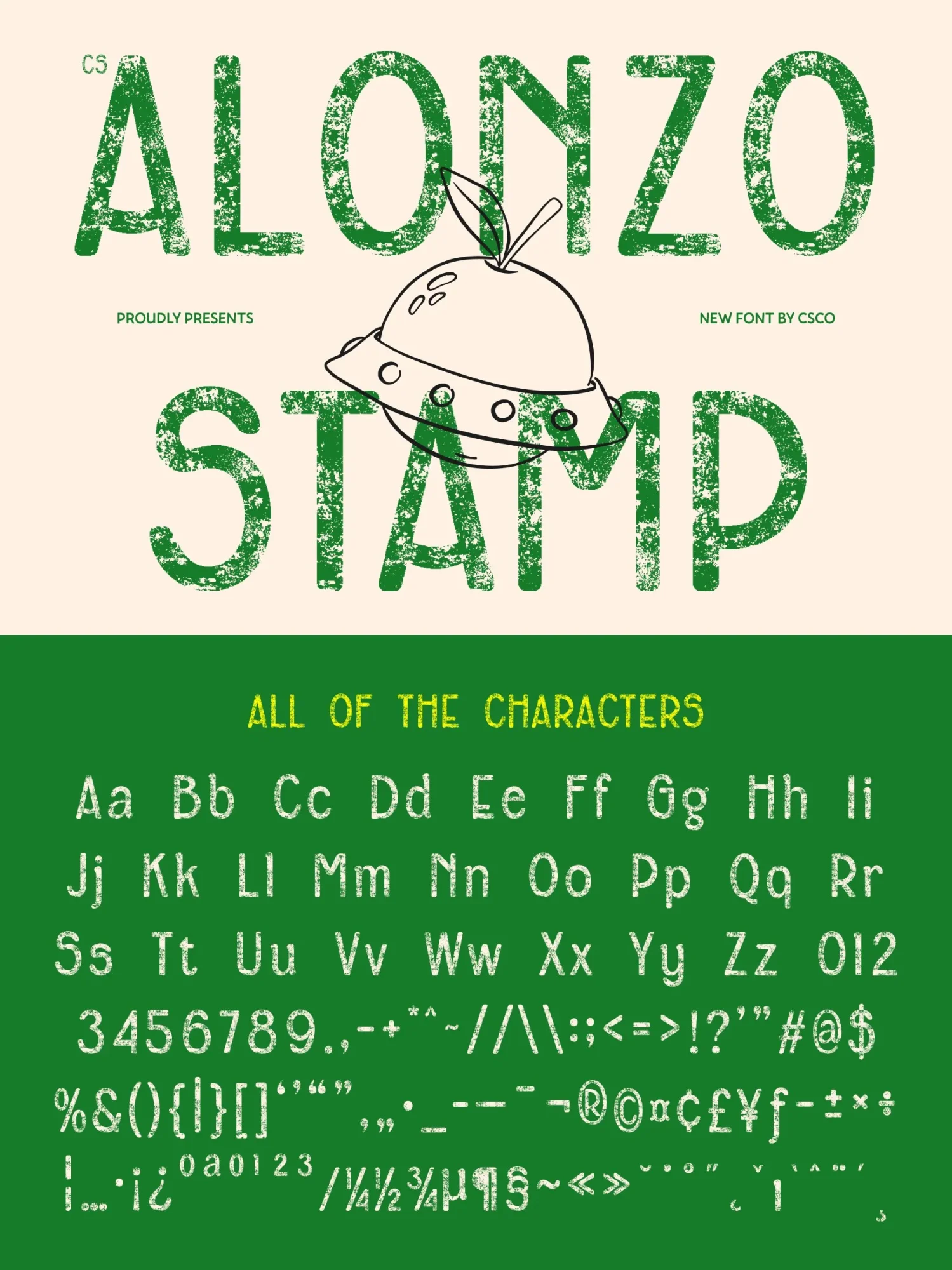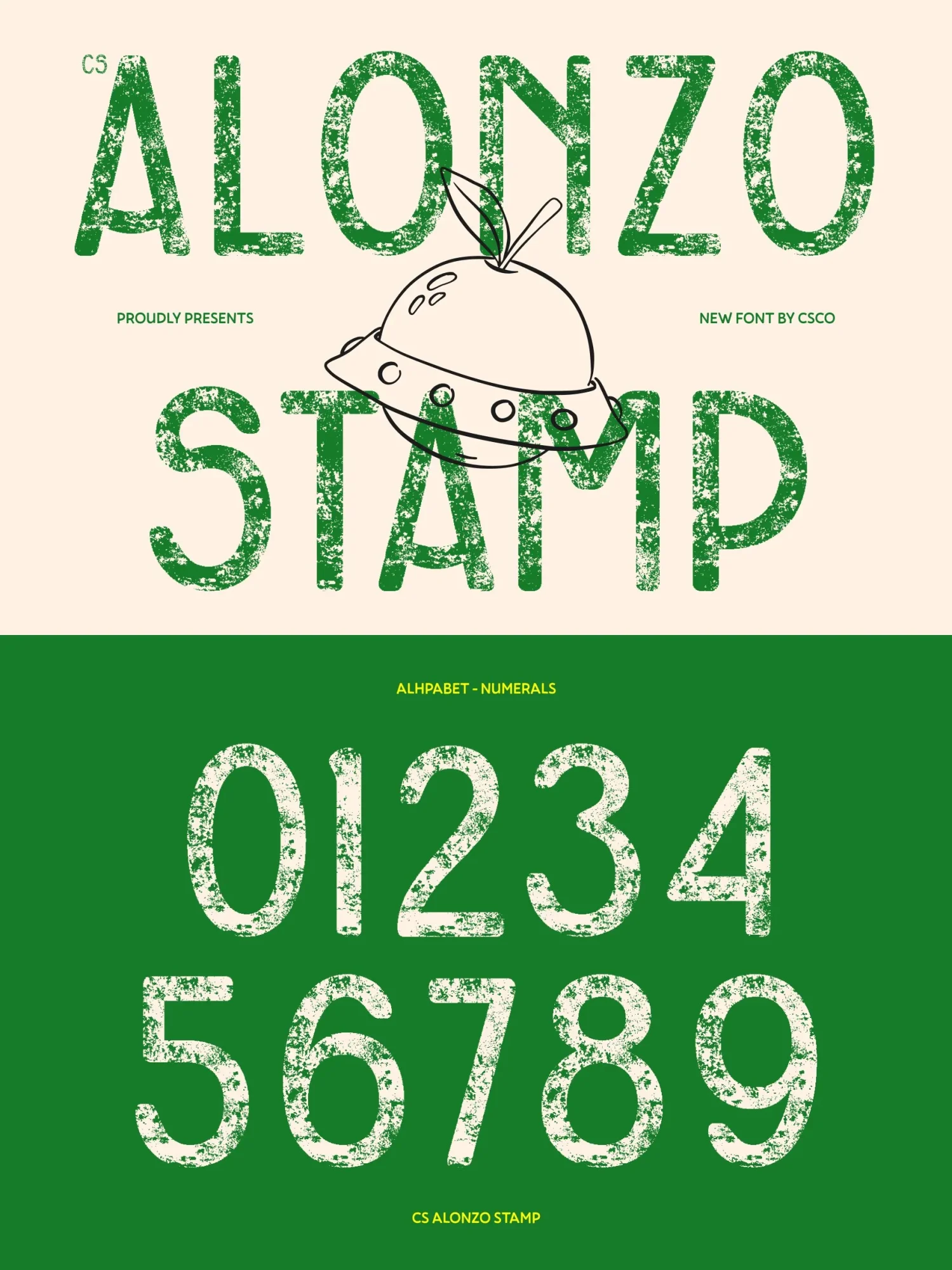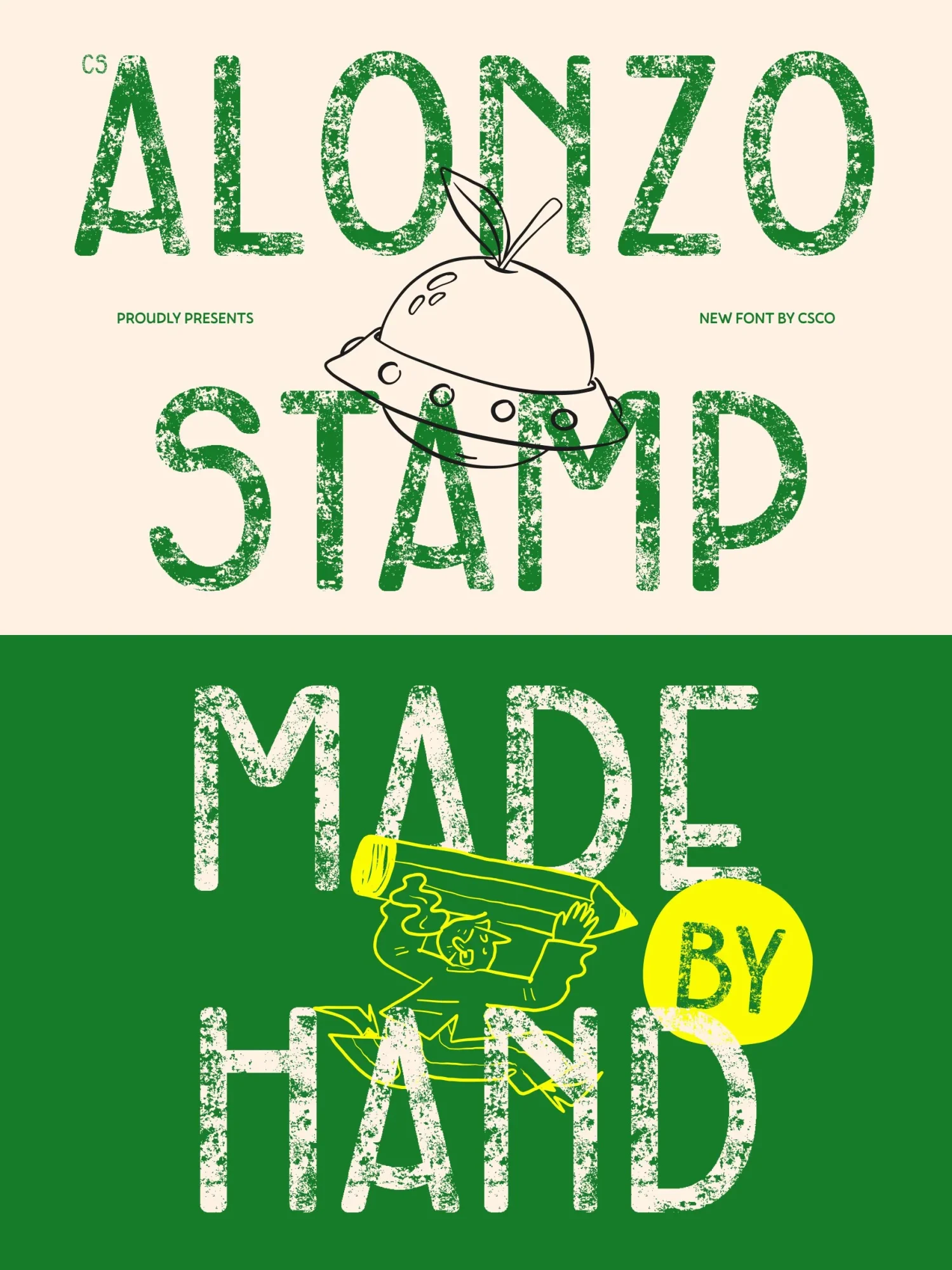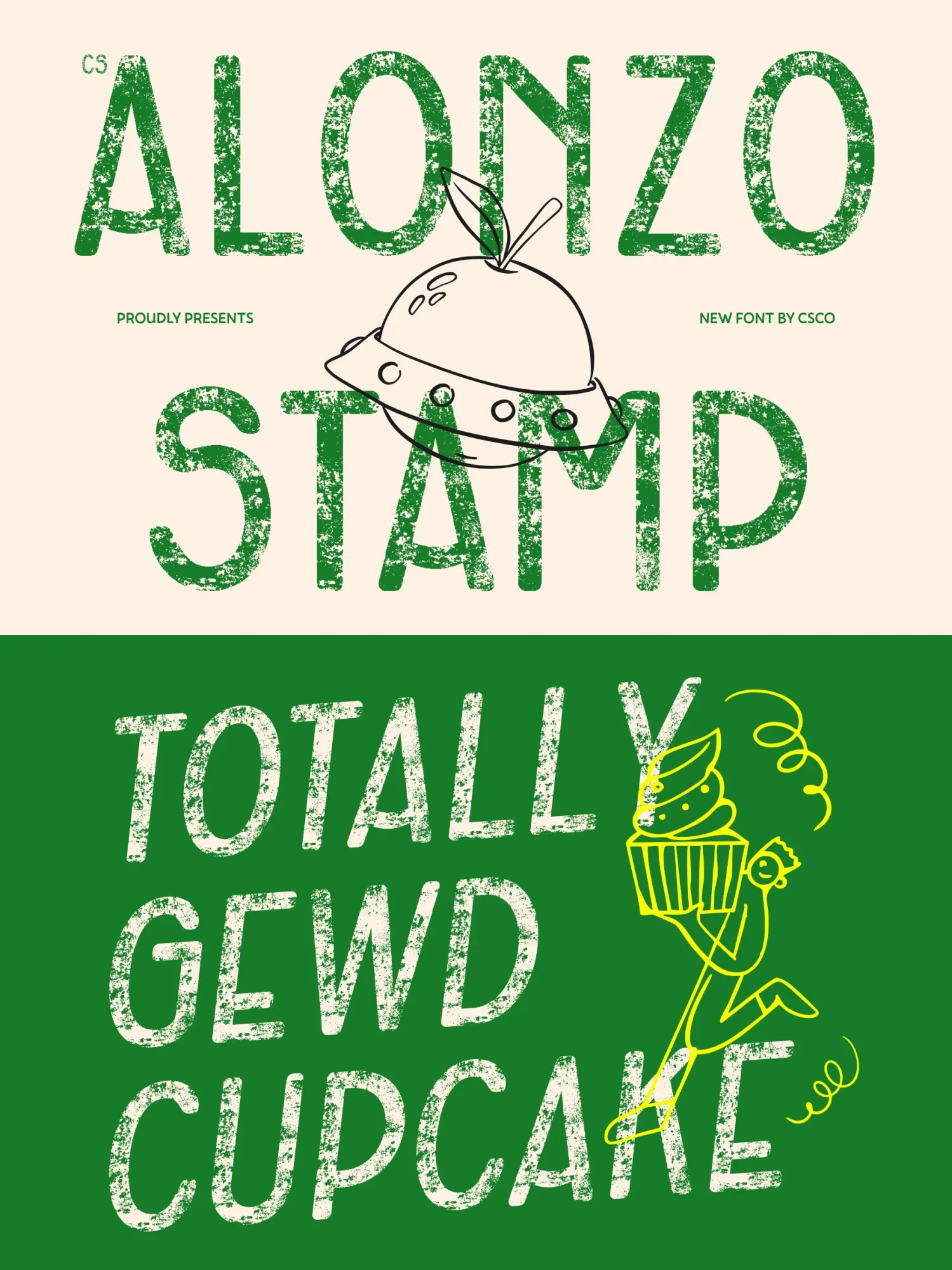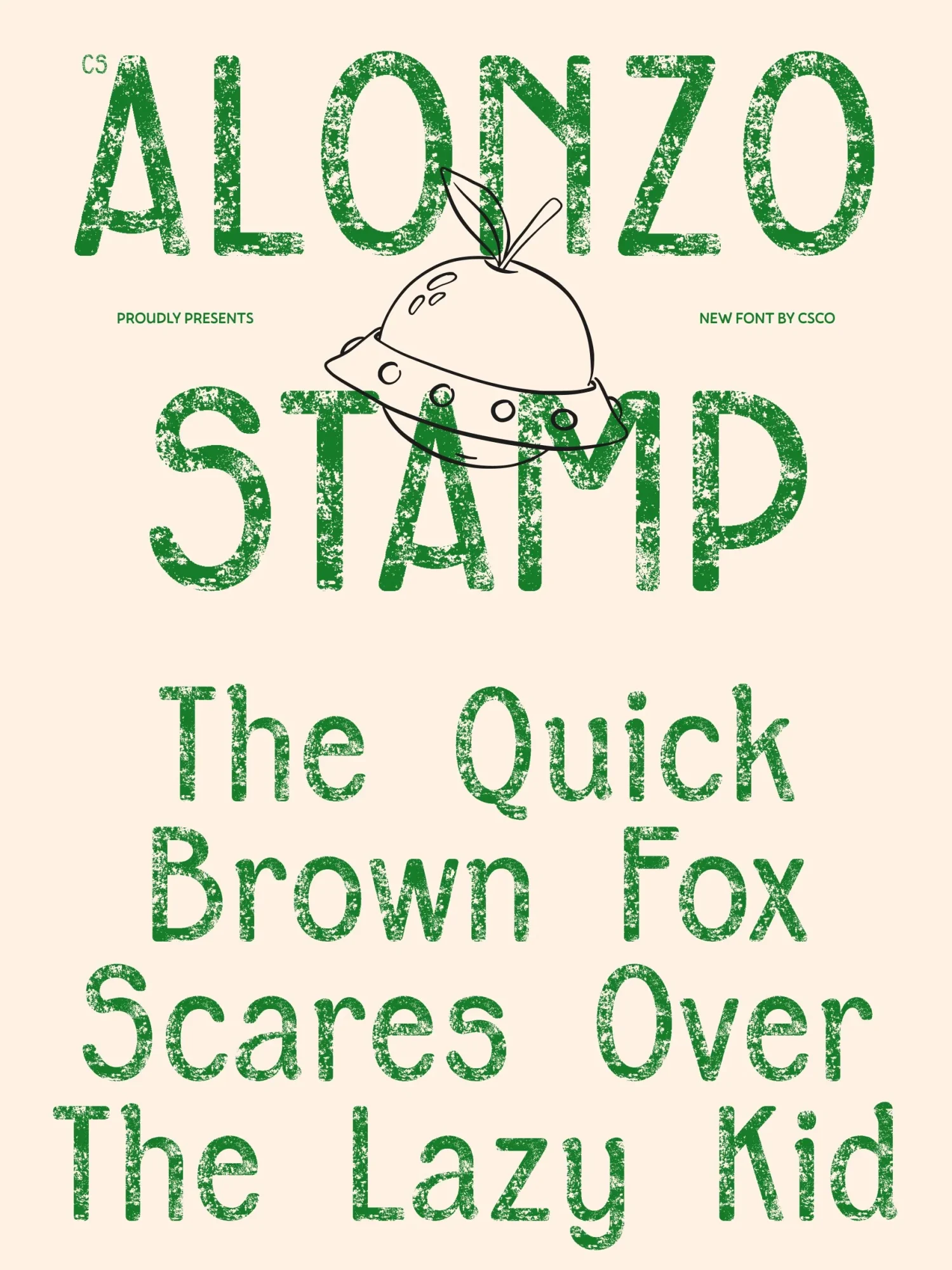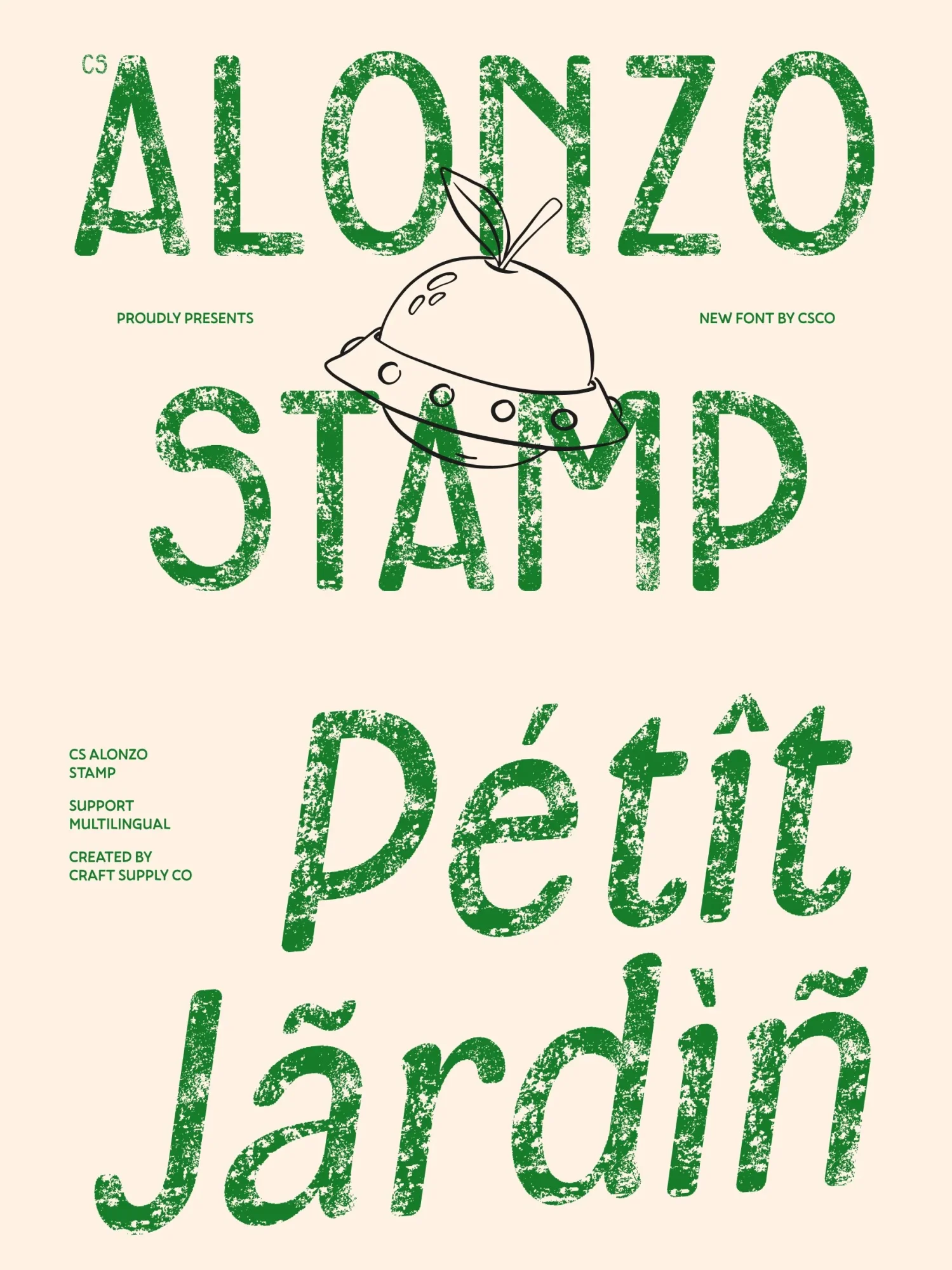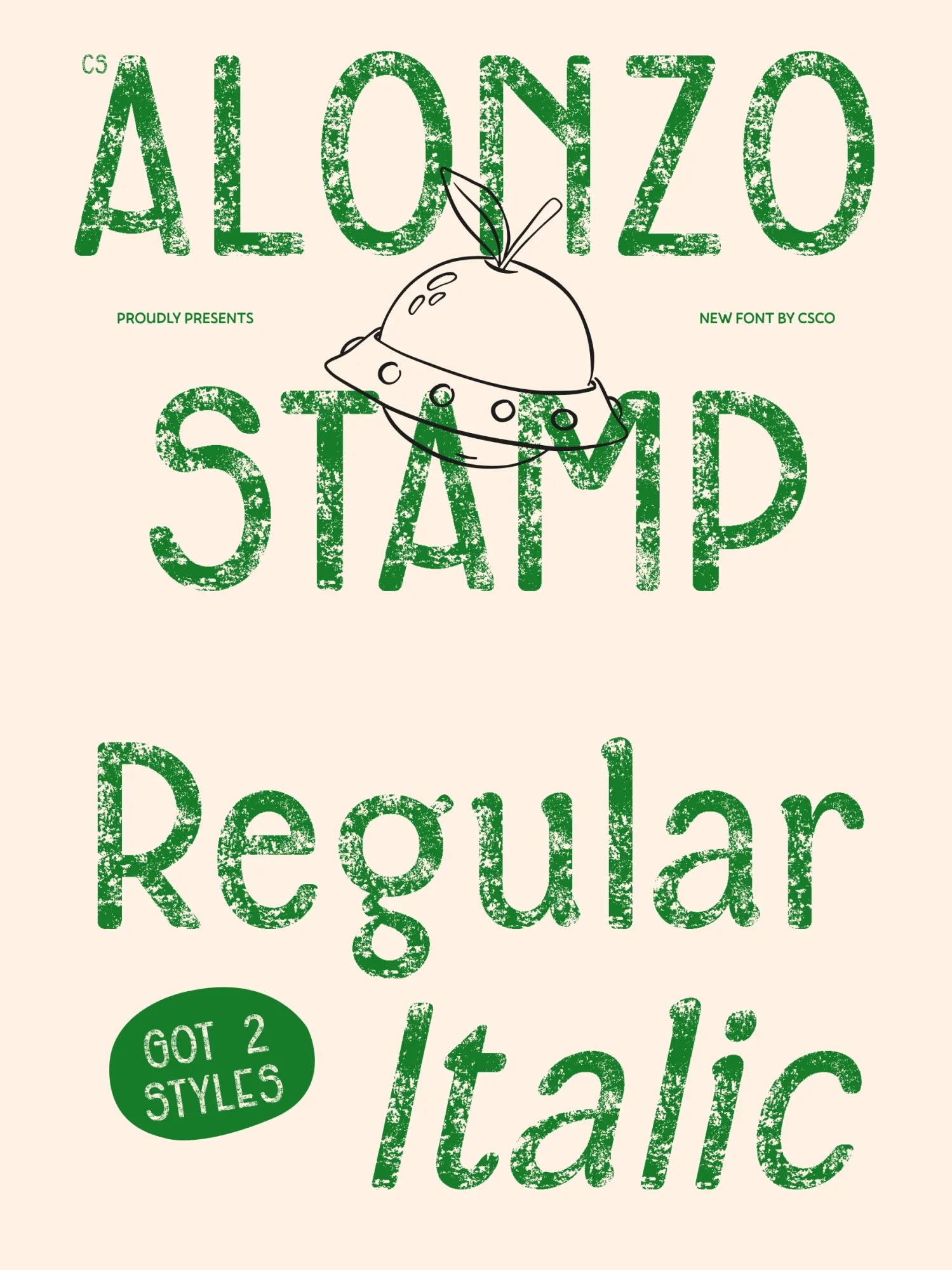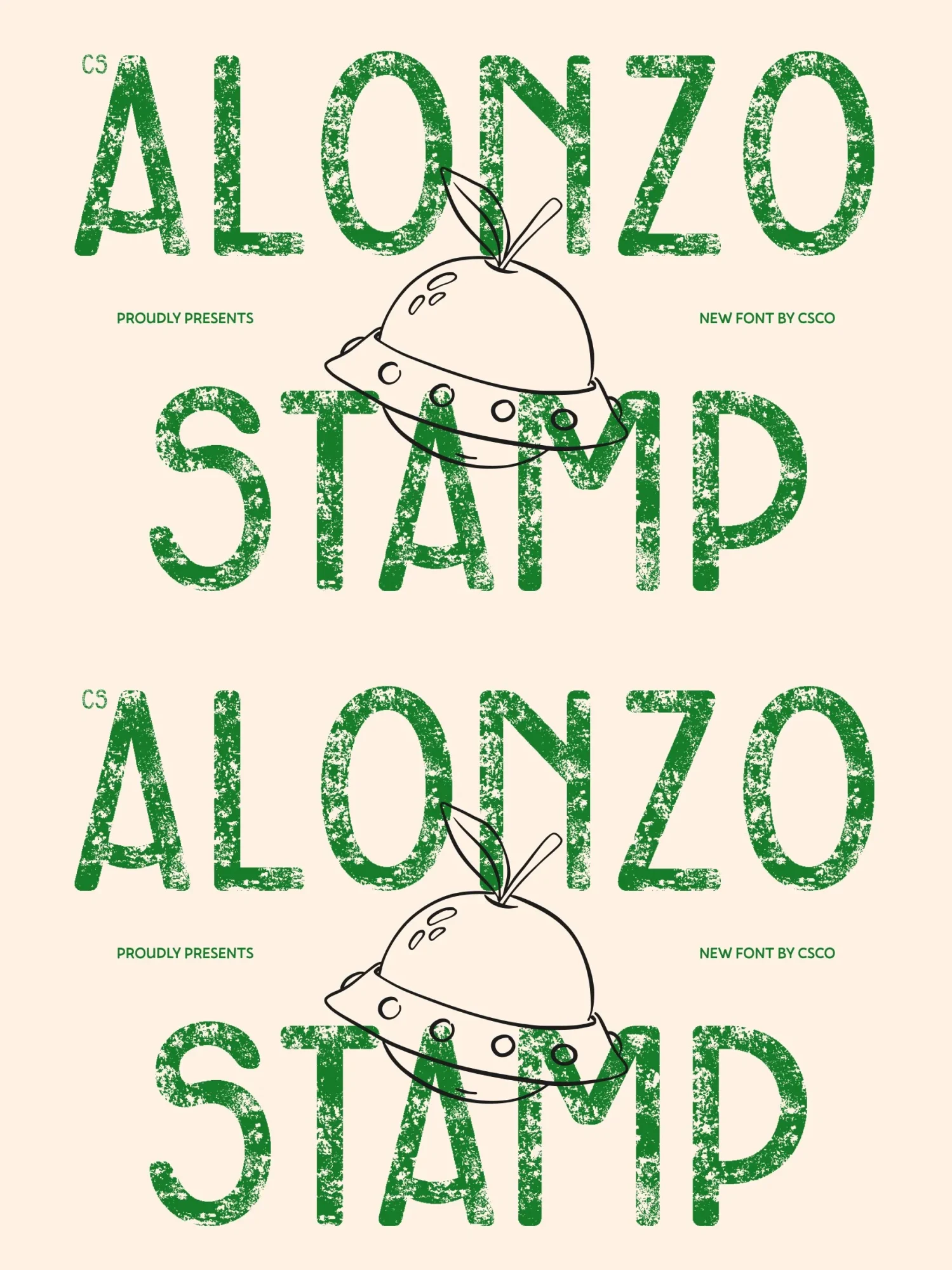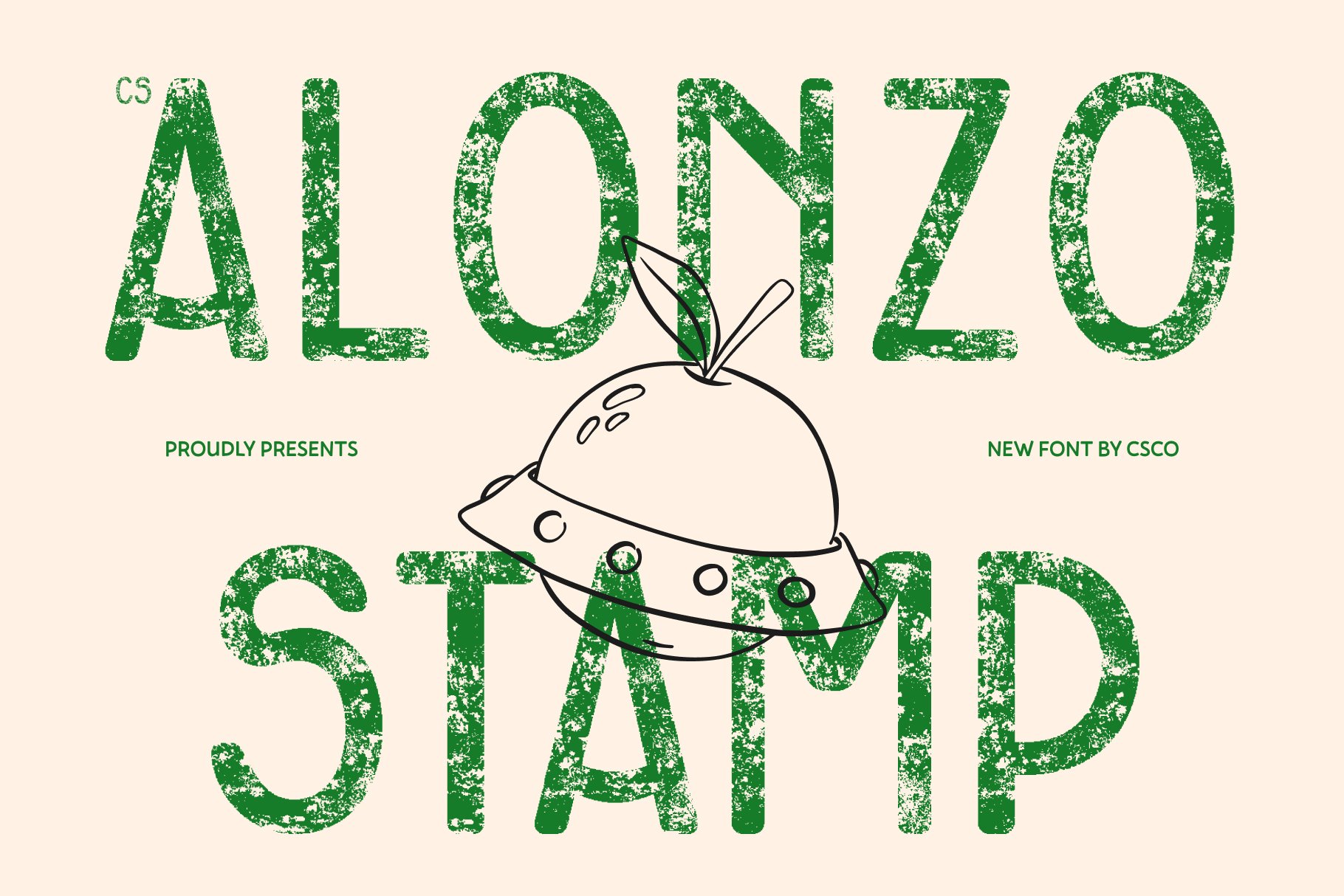
Cute and Charming Rounded Design
This is a modern rounded sans serif font designed to express cuteness, warmth, and friendly charm. Its soft corners and smooth shapes create a cheerful and feminine appearance that feels lighthearted and approachable. The subtle stamp effect adds texture and character, giving the font a playful handcrafted touch.
Sweet Personality with Textured Warmth
The rounded letterforms radiate sweetness and visual comfort, while the stamped finish introduces gentle imperfections that enhance its charm. This combination creates a lively, artistic look that feels expressive without being overwhelming, making the font visually engaging and full of personality.
Modern Simplicity with Approachable Style
Built on a clean and modern foundation, this font maintains excellent readability while feeling friendly and inviting. Its approachable design allows it to adapt effortlessly across different creative contexts, balancing simplicity with playful expression.
Perfect for Fun and Creative Projects
Ideal for beauty branding, packaging, invitations, kids-related designs, lifestyle visuals, and cheerful promotional materials, this font brings joy and warmth to any project. It is a perfect choice for designers seeking a cute, modern font with textured charm and delightful appeal.